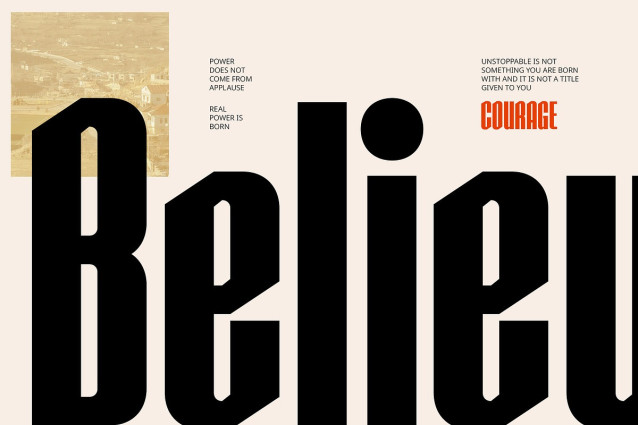
CS Glister Font
CS Glister Font is a modern display sans serif font with a bold and condensed structure that commands attention. Its narrow yet dense form allows for a powerful visual presence, making it ideal for headlines, posters, packaging, and logos where space is limited but impact is essential.
Classic Touch for Elegant Personality While bold in form, CS Glister also carries a subtle classic influence, adding a refined and elegant character to its otherwise modern appearance. This fusion brings a unique charm to the typeface, balancing confidence with sophistication—perfect for upscale branding or editorial work.
Striking Yet Versatile Designed to stand out, CS Glister remains surprisingly versatile across various media and design styles. Whether used in fashion campaigns, product labels, social content, or modern websites, it holds its own with a distinctive voice that feels current and full of personality.
Perfect for Designs That Want to Be Remembered CS Glister is more than just a bold font—it’s a design statement. Perfect for creative professionals who need to deliver impactful messages with a touch of class, this font provides a clear, stylish voice that doesn’t just attract attention but holds it.